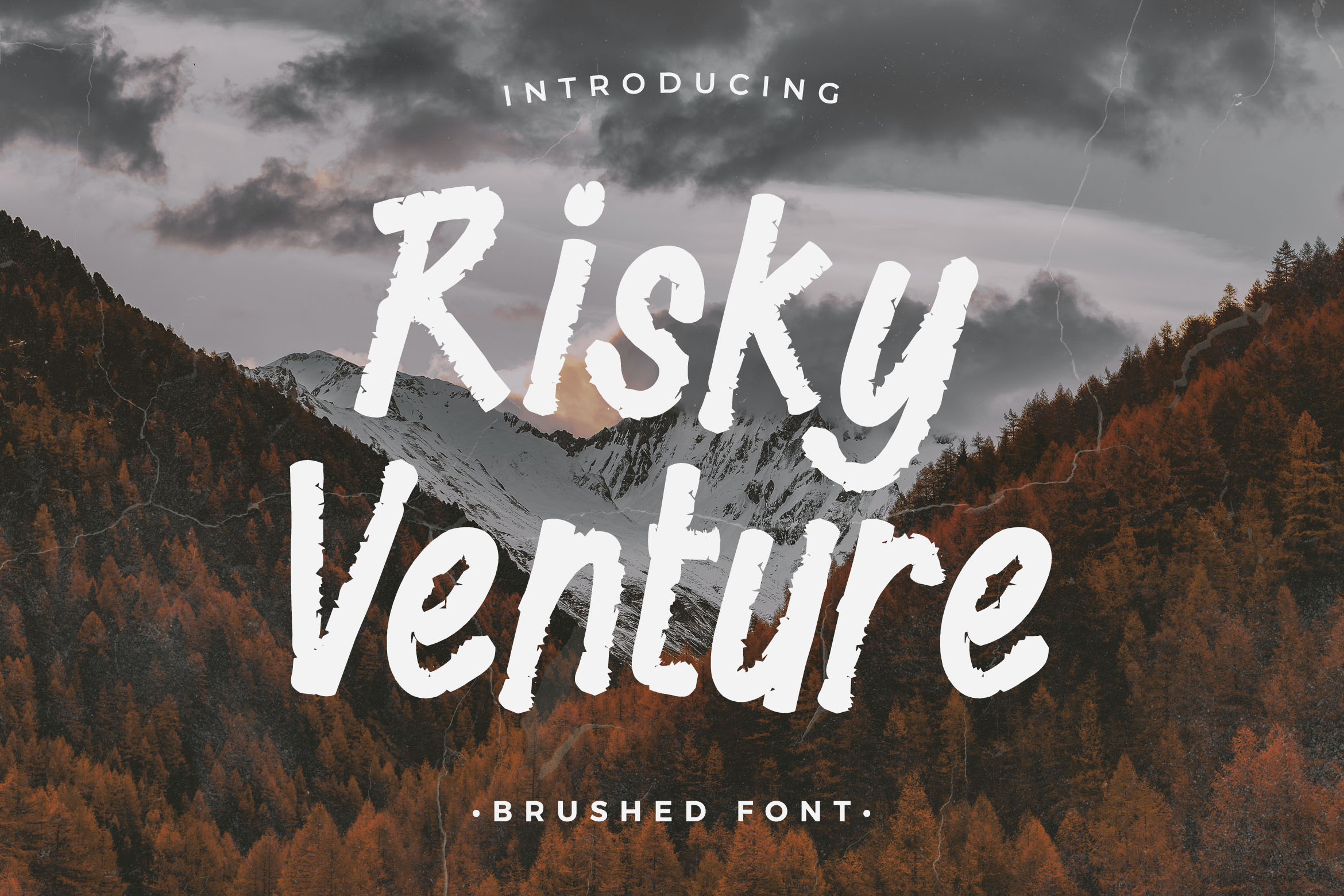
Risky Venture - Brushed Font
Risky Venture is a modern brush display font, defined by a flowing and contemporary design. Fall in love with its incredibly versatile style and use it to create spectacular designs!